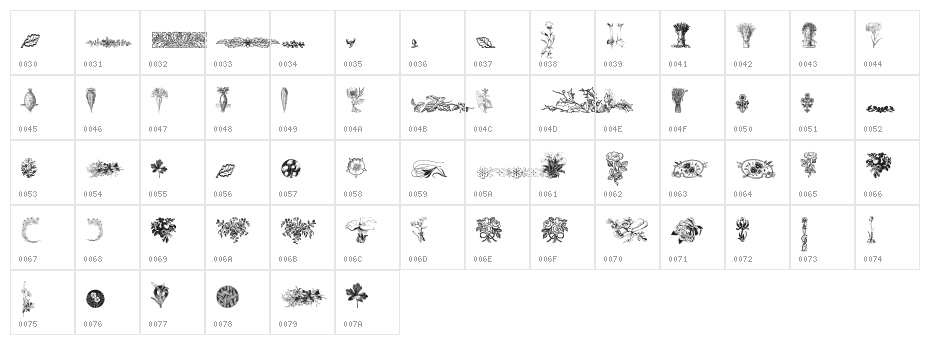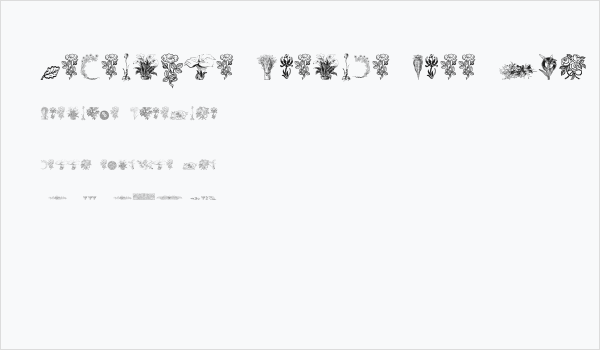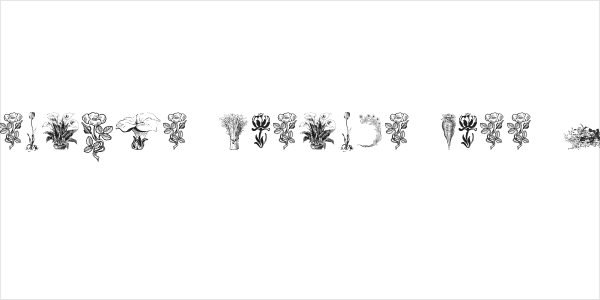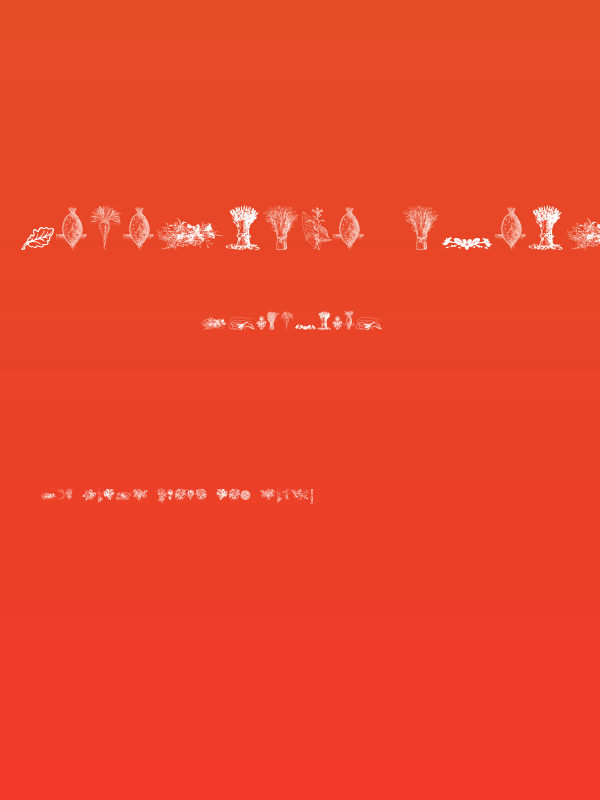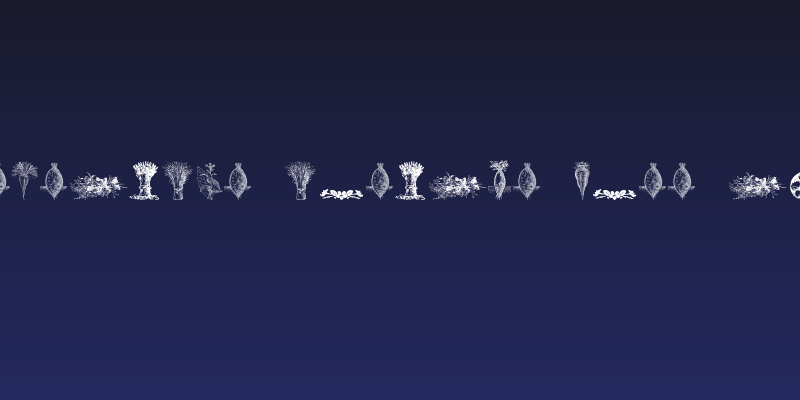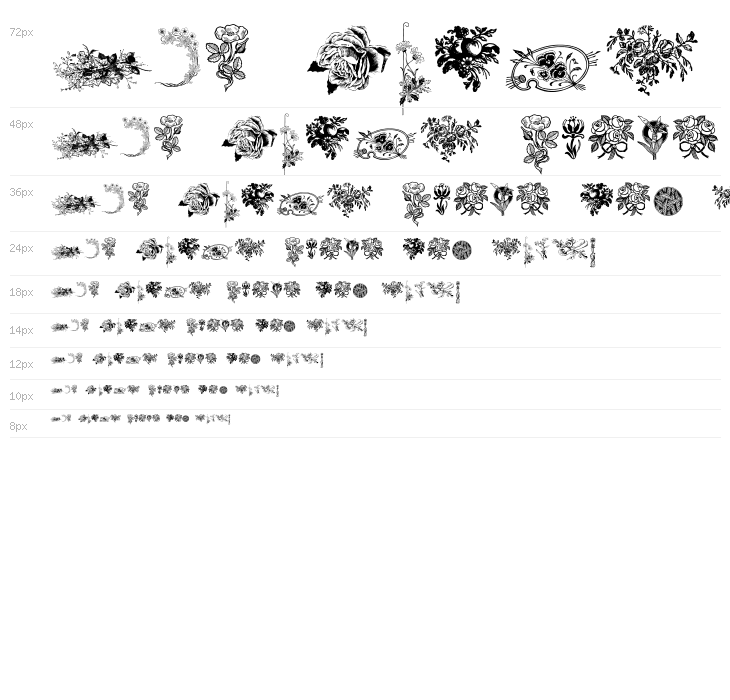
Vegetable Breathe Free Two Font
Vegetable Breathe Free Two Description
A decorative dingbat set featuring detailed botanical and vegetable illustrations, including flowers, leaves, roots, and ornate plant arrangements. Each glyph is a unique, intricate drawing rather than a standard alphanumeric character.
| Overall Style | Vintage, Decorative |
| Use Case | Decorative elements, Borders, Illustrative accents |
| Proposed Projects | Invitations, botanical prints, scrapbooking, packaging, decorative borders, nature-themed branding. |